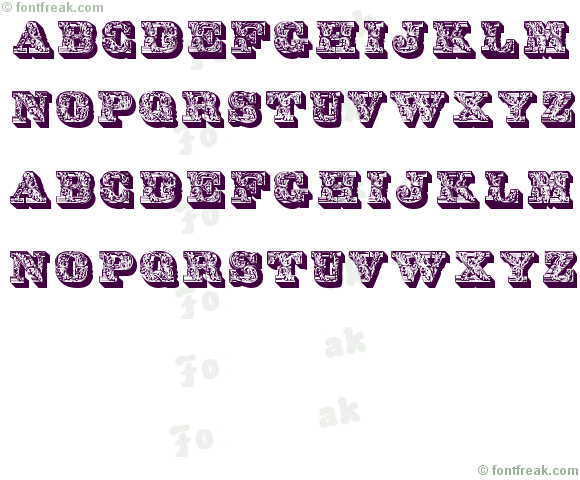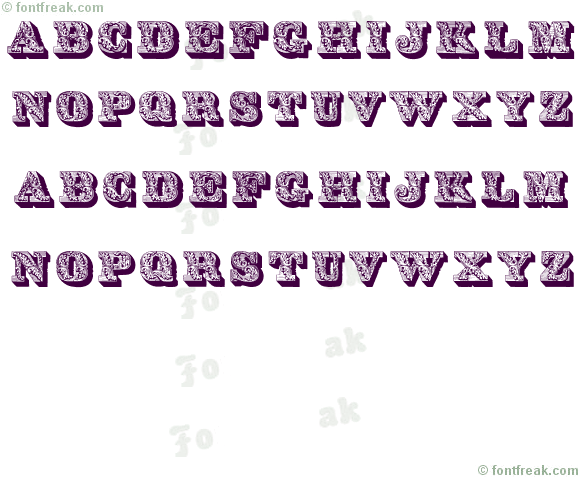
Lettres ombrees ornees
Lettres Ombrees Ornees, designed by Dieter Steffmann, is a captivating decorative serif font that brings a touch of elegance and sophistication to any project. This freeware typeface is characterized by its unique interplay of bold strokes and delicate, ornate details. The font features a moderate stroke weight with subtle contrasts that enhance its visual appeal, while the carefully designed spacing ensures readability even in intricate designs. Its decorative elements, reminiscent of classic typography, add a whimsical flair, making it a perfect choice for a variety of creative applications.
This font is particularly well-suited for wedding invitations, where its charming character can set a romantic tone. It also shines in the design of movie posters, lending a vintage flair that captivates audiences. Restaurant menus will benefit from its artistic touch, enticing diners with a sense of culinary adventure. Additionally, Lettres Ombrees Ornees can elevate branding materials for boutique shops, where its unique style can convey a sense of luxury and craftsmanship.
Targeting graphic designers, small business owners, and content creators, this font offers versatility and aesthetic appeal for professionals looking to make a memorable impression. Its unique blend of artistic style and functional design makes it a valuable asset in any designer's toolkit.
What truly sets the Lettres Ombrees Ornees font apart is its ability to blend classic typography with modern sensibilities. Its enchanting design captures attention while remaining legible, making it ideal for both print and digital media. Whether you are crafting a heartfelt invitation or a striking visual identity, this font is a standout choice that can elevate your work. Discover the charm of Lettres Ombrees Ornees with a Lettres Ombrees Ornees font free download, and let your creativity flourish.